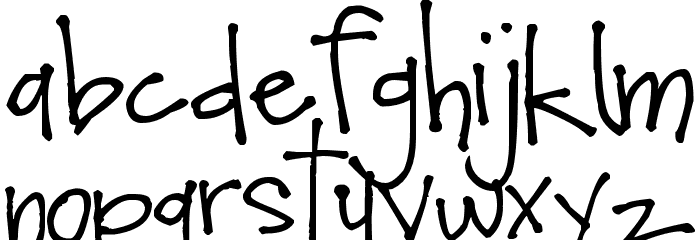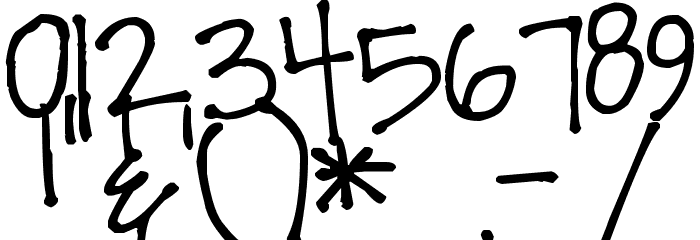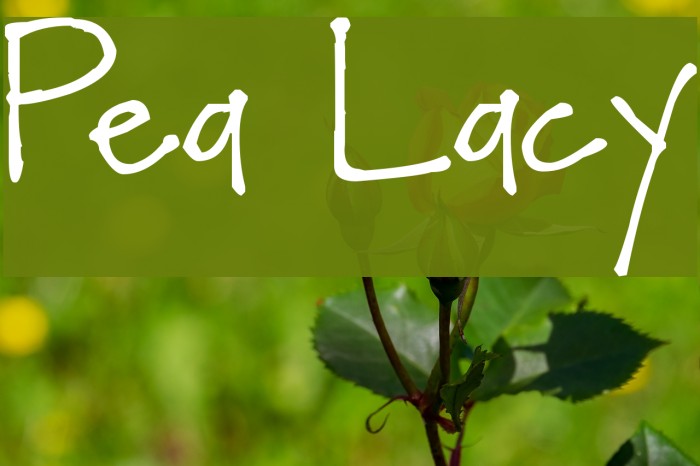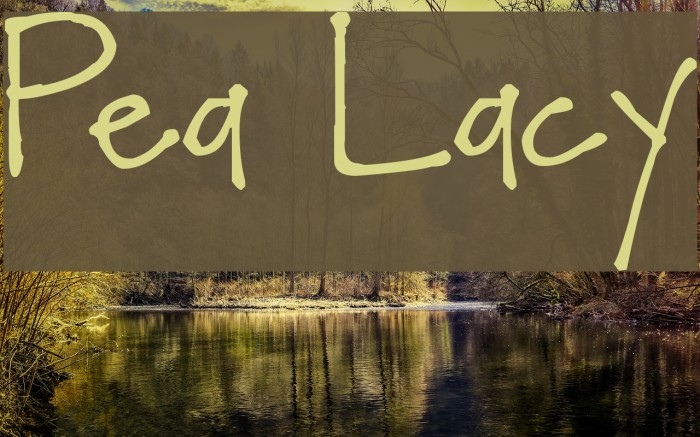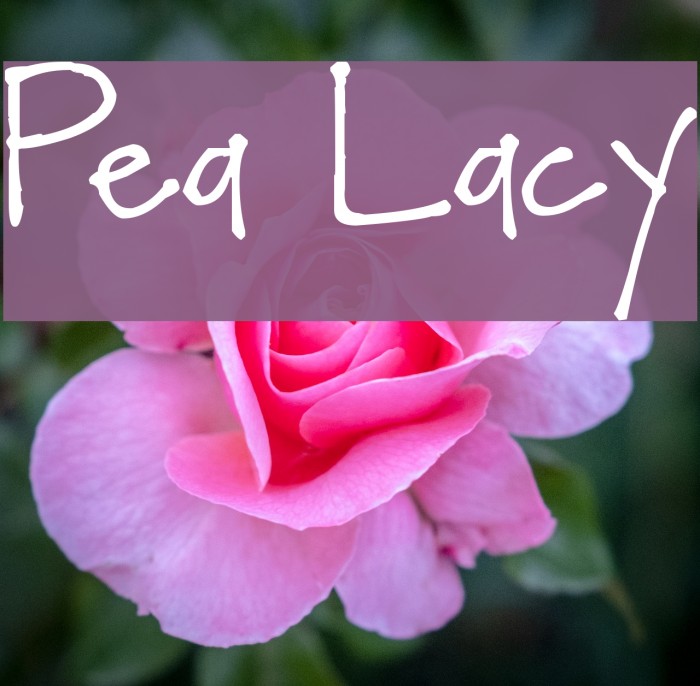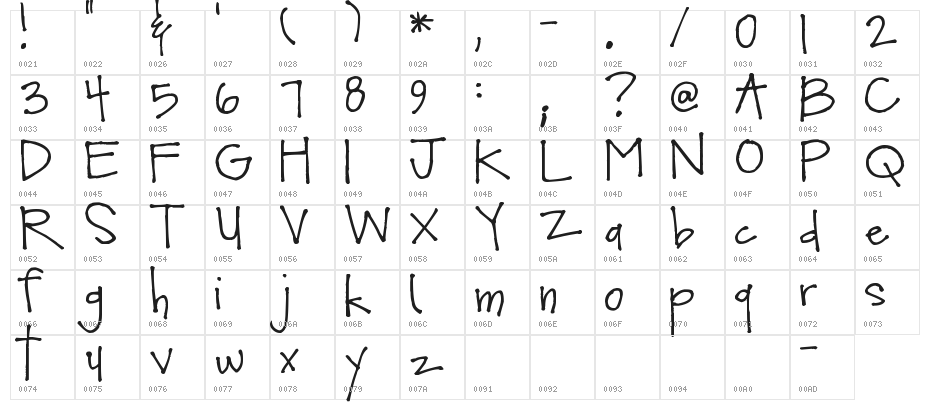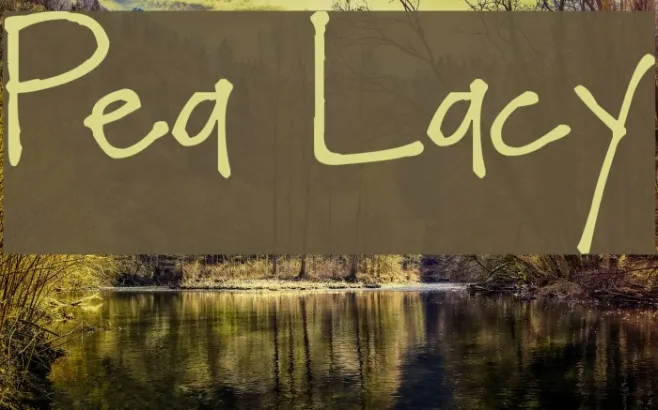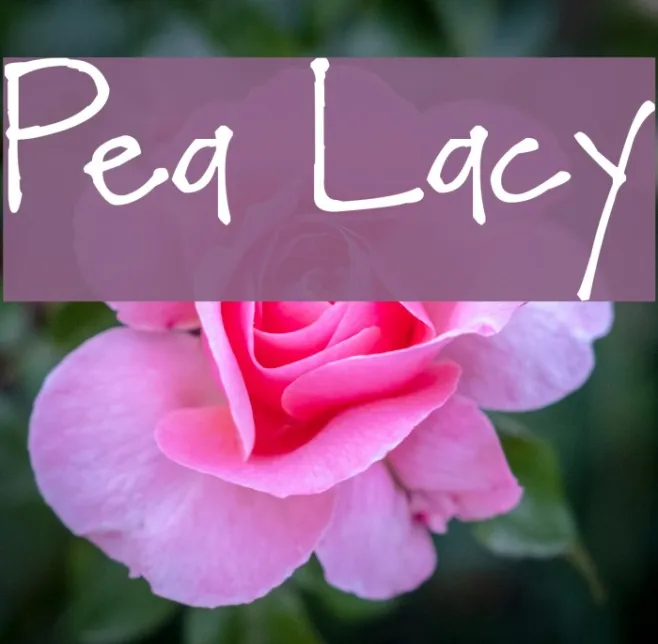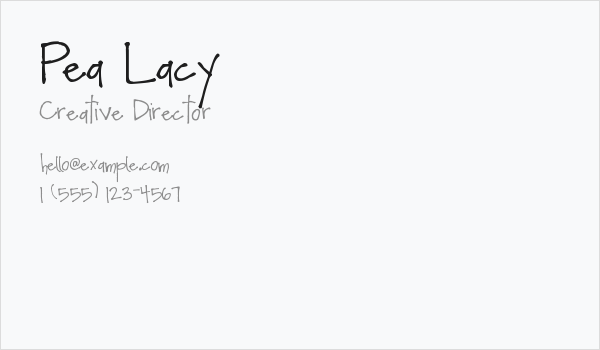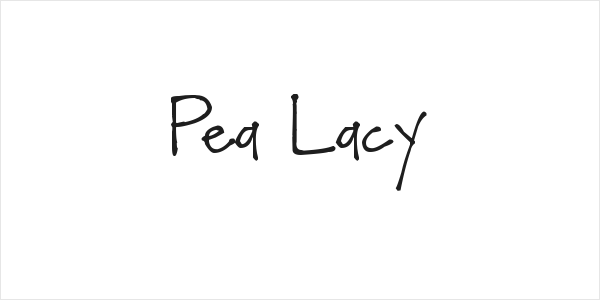
Pea Lacy Font
This font exudes a playful and casual handwritten style, characterized by its irregular and slightly whimsical strokes. The letters are unevenly sized, giving it a personal and informal touch, reminiscent of a quick note or doodle. The uppercase and lowercase letters maintain a consistent style, with a slight tilt and varying line thickness that adds to its charm. Numbers and special characters follow the same playful aesthetic, making it suitable for creative and informal projects. The overall appearance is lively and approachable, perfect for adding a personal touch to any design.
A playful, casual handwritten font with irregular strokes and a whimsical style.
- Proposed Projects: Ideal for greeting cards, personal notes, children's books, and informal branding.
- Overall Style: Casual, Playful
- Use Case: Greeting cards, Personal notes, Informal branding